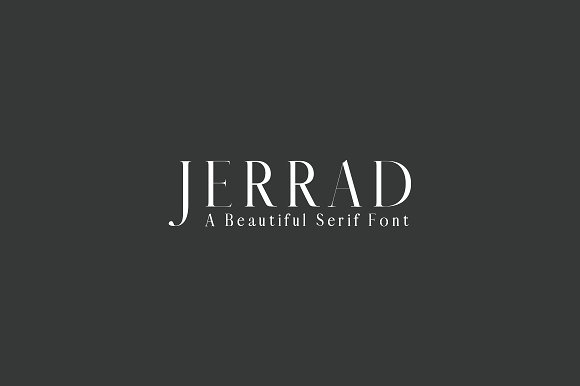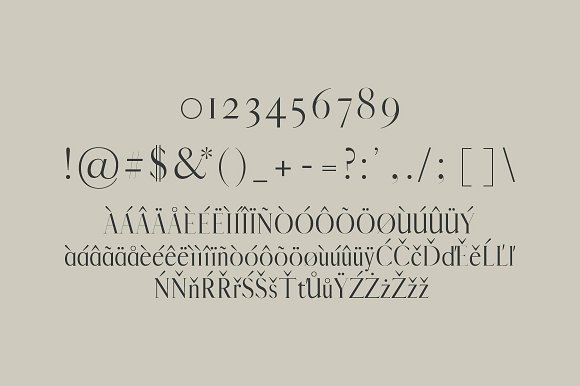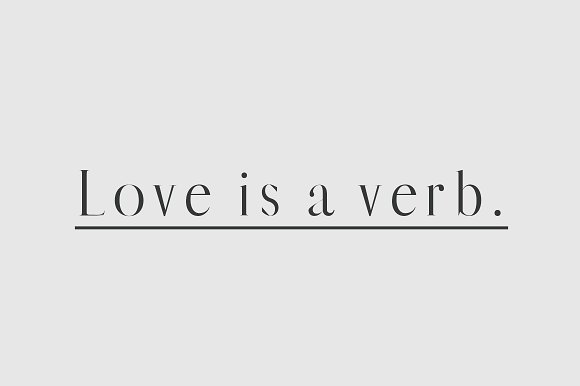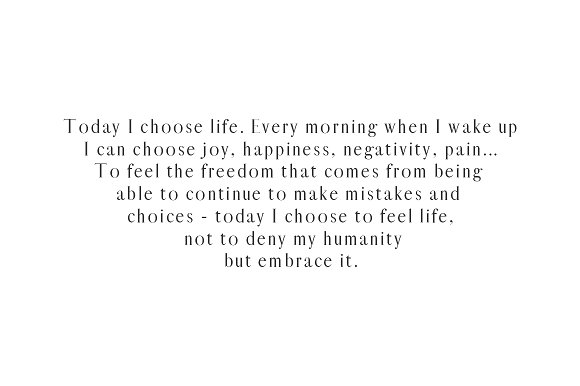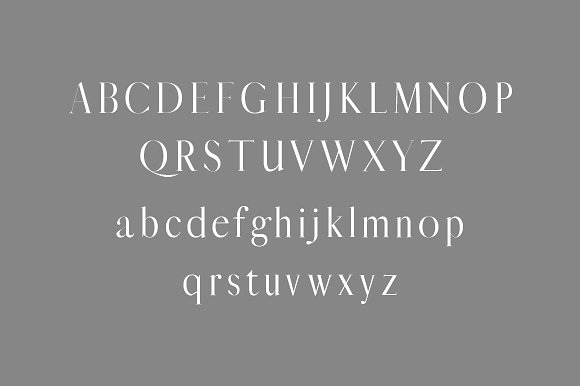
Jerrad Beautiful Serif Font Family
Jerrad A Beautiful Serif Font Family is a clean and beautiful serif font family, which contains 4 weights and Jerrad features unique and modern serif look and feel. Perfect for gorgeous logos, titles, web layouts and branding.
It looks gorgeous in all caps with a wide-set spacing if you want to try a classy look, or beautiful on its own in capital and lowercase letters for something completely timeless.